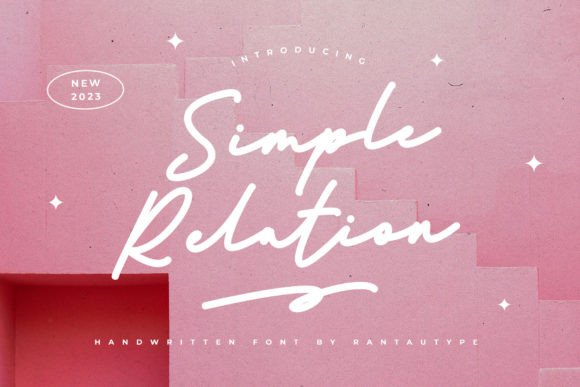
In search of that special font that dances across your screen, leaving a trail of creativity in its wake? Simple Relation, a modern script font, beckons you into a world of sophistication and charm, ready to take your designs to the next level. This enticing font family, crafted by the skilled hands at RantauType, is a treasure trove of visual elegance, perfect for in-line text.
Unleash your imagination and let Simple Relation guide you on a journey of self-expression. Its smooth curves and delicate strokes bring a touch of whimsy to your words, making them leap off the page with a captivating allure. Simple Relation effortlessly blends readability and style, ensuring your message shines through while capturing your audience's attention.
Picture the perfect wedding invitation, its text adorned with Simple Relation – each letter intertwining gracefully, forming a harmonious dance of elegance and romance. Or envision a captivating logo that embodies the essence of your brand, its name emblazoned in Simple Relation, exuding professionalism and sophistication.
Embrace Simple Relation and elevate your designs to new heights. Whether it's a watermark on your stunning photography, a business card that commands attention, or a magazine spread that leaves readers spellbound, Simple Relation is your perfect partner. Its versatility knows no bounds, allowing you to weave your creative magic in a myriad of projects.